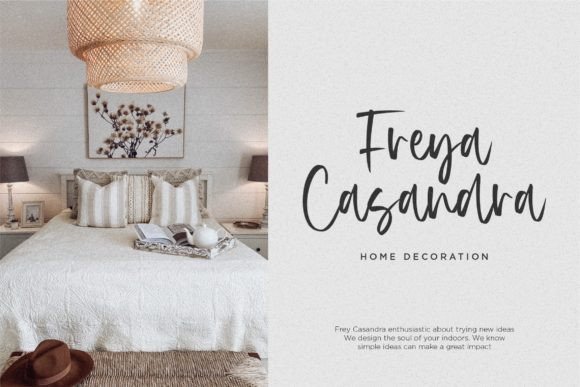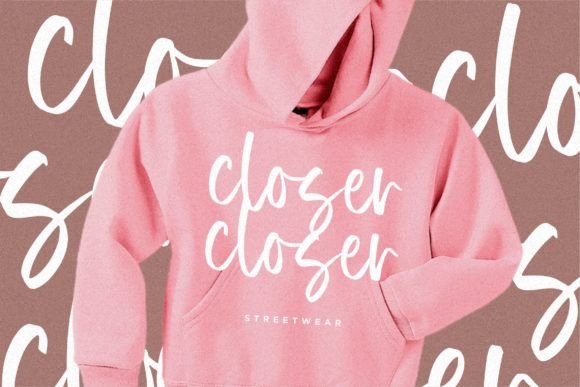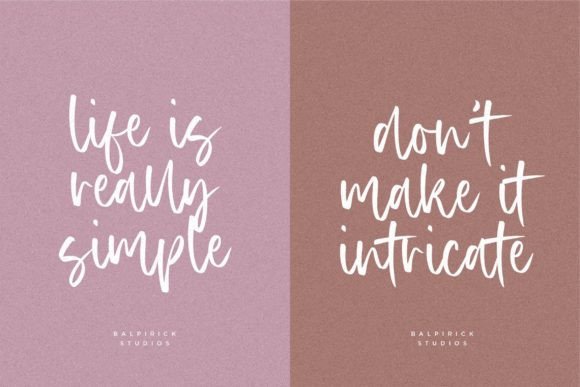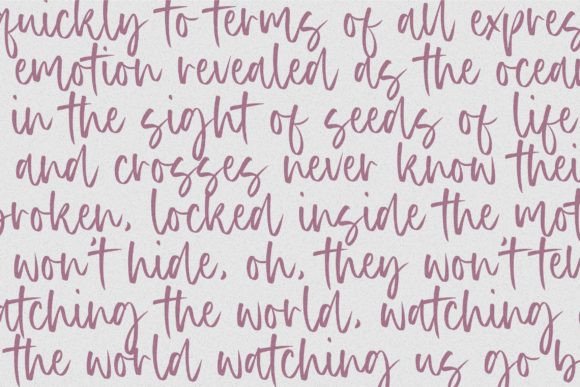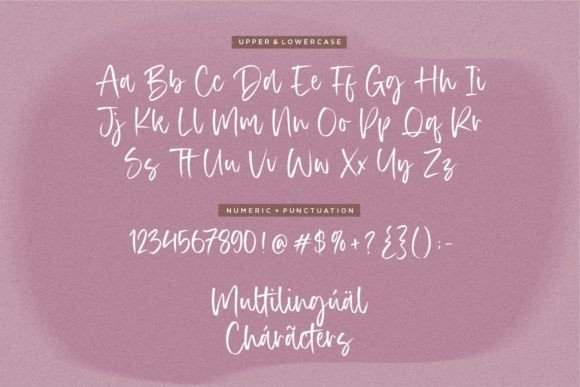
Introducing Authentica Font: Elevate Your Designs with Luxurious Elegance
In the world of typography, a font can make or break a design. For designers and crafters seeking to add a touch of sophistication and luxury to their projects, Authentica Font is an exceptional choice. This bright and exquisite script font is meticulously crafted to bring a sense of elegance and refinement to any design.
The Essence of Authentica Font
Authentica Font is characterized by its clean lines, graceful curves, and meticulously designed details. These elements combine to create a unique and eye-catching look that is sure to captivate audiences. The font’s design is a perfect blend of modernity and classic elegance, making it versatile for a wide range of applications.
Whether you’re working on a logo, title, invitation, or any other creative project, Authentica Font is an excellent choice. Its luxurious feel makes it particularly well-suited for:
- Logos: Create a lasting impression with a logo that exudes elegance and sophistication.
- Titles: Add a touch of class to your headings and titles, making your content stand out.
- Invitations: Make your invitations special with a font that conveys luxury and refinement.
- Creative Projects: From branding materials to packaging, Authentica Font can elevate any creative project.
Why Choose Authentica Font?
There are several reasons why Authentica Font stands out from the crowd:
- Unique Design: Its distinctive look ensures that your designs will have a unique flair.
- Versatility: Suitable for a wide range of projects, from digital to print.
- Ease of Use: Designed to be user-friendly, making it easy to incorporate into your projects.
- High Readability: Despite its elegant design, Authentica Font maintains high readability, making it perfect for both headings and body text.
Tips for Using Authentica Font
To get the most out of Authentica Font, consider the following tips:
- Pair with Complementary Fonts: For maximum impact, pair Authentica Font with fonts that complement its elegant style. Sans-serif fonts can create a nice contrast.
- Adjust Size and Color: Experiment with different sizes and colors to find the perfect combination for your design.
- Use for Headlines and Accents: While beautiful for body text, Authentica Font truly shines when used for headlines and accent text.
Authentica Font is a stunning script font that can add a luxurious touch to any design. Its unique blend of clean lines, graceful curves, and detailed craftsmanship makes it a standout choice for designers and crafters looking to elevate their projects. Whether you’re creating logos, titles, invitations, or other creative works, Authentica Font is sure to make a lasting impression.
Incorporate Authentica Font into your design toolkit and discover the difference it can make in your work. With its elegance, versatility, and eye-catching appeal, it’s an excellent choice for anyone looking to add a touch of luxury to their designs.